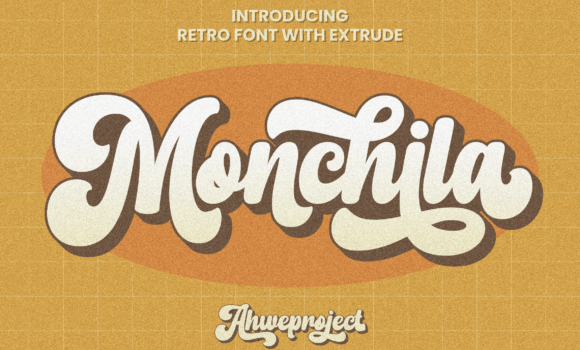
monchila
Monchila Font – Free Download Introduction to Monchila Font Monchila is a fun, retro-style script display font that is ready to take your designs to the next level. 📸 Preview Gallery 6 images 📌 Product Name Monchila Font 👤 Author